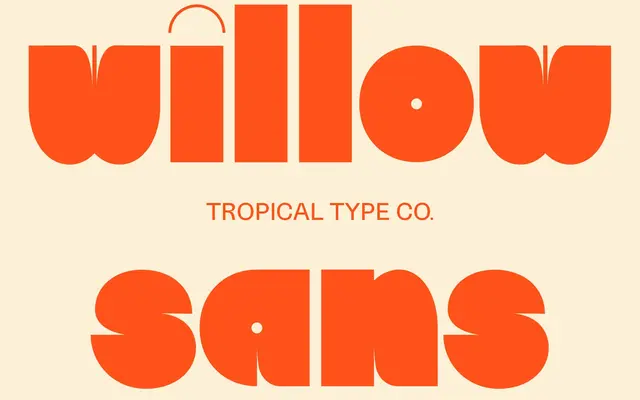
Willow Sans
A single-weight geometric display face with 1970s references and experimental outline forms that give it a retro-quirky character.
Geometric proportions drawn from 1970s display lettering are combined with more experimental outlines to produce a bold face that reads as nostalgic without feeling purely archival. It ships in OTF, TTF, WOFF, WOFF2 and SVG formats, with a reasonable set of accented Latin glyphs for Western European languages. Best suited to branding, packaging and social graphics where a warm, approachable boldness is wanted.
A single bold weight with geometric 1970s-influenced forms and experimental outlines places this firmly in display territory rather than a functional text grotesque.